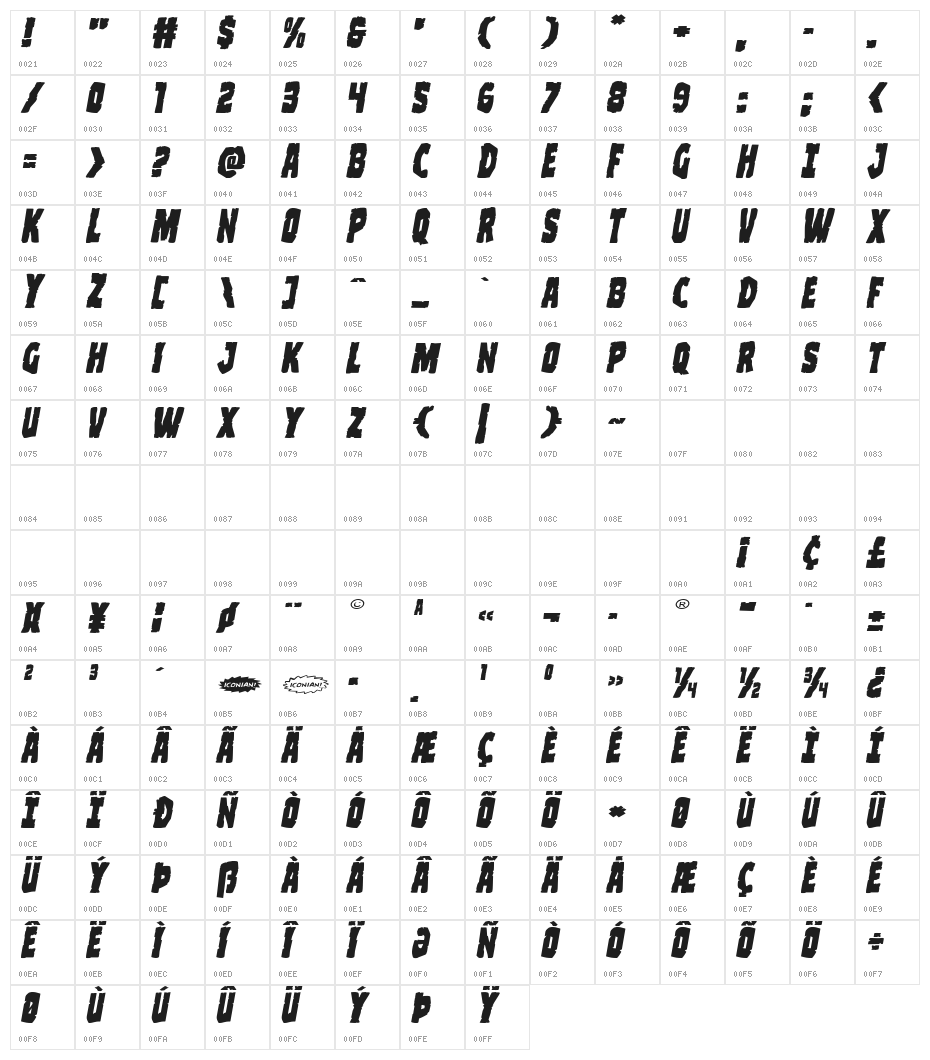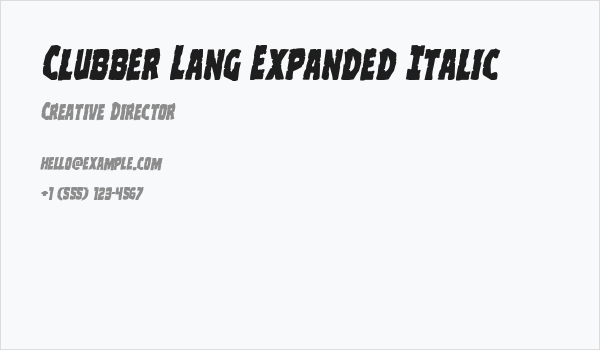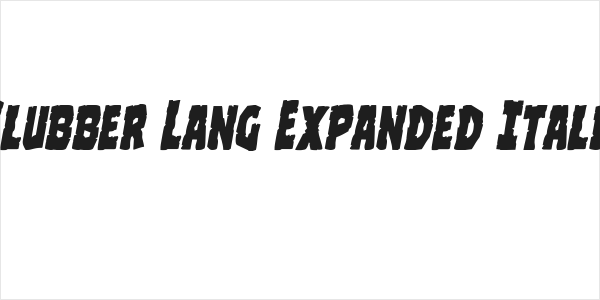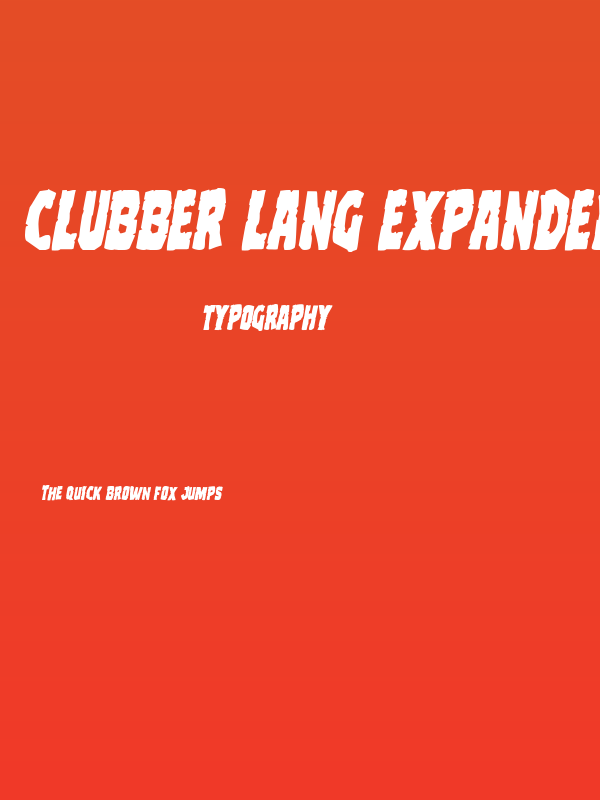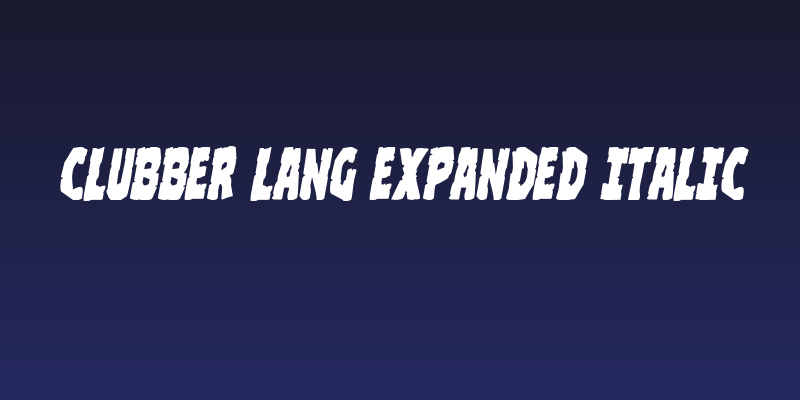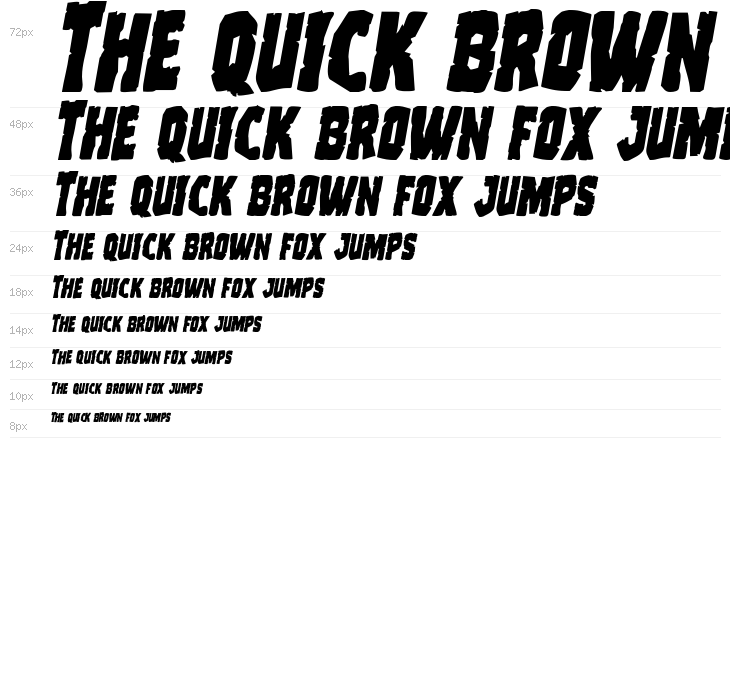
Clubber Lang Expanded Italic Font
Clubber Lang Expanded Italic Description
This font exhibits a bold and aggressive style, characterized by its jagged, rough edges and a dynamic slant that gives it a sense of movement and energy. The letters are heavily distorted, creating a chaotic yet structured appearance that commands attention. The uppercase and lowercase letters maintain a consistent style, with exaggerated angles and a distressed texture that adds to its rugged aesthetic. The numbers and special characters follow the same design principles, ensuring uniformity across all glyphs. This font's expanded width and italicized form enhance its boldness, making it stand out in any design.
| Proposed Projects | Ideal for music album covers, sports team branding, action movie posters, or any project requiring a bold, edgy look. |